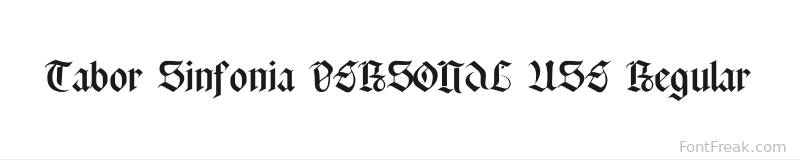
Tabor Sinfonia PERSONAL USE Regular
Tabor Sinfonia PERSONAL USE Regular is a striking display font designed by Mans Greback, characterized by its unique serif style. This font features a blend of traditional elegance and contemporary flair, making it a versatile choice for various creative projects. The stroke weight varies gracefully, adding a sense of dynamism to the characters, while the contrast between thick and thin lines enhances its visual appeal. The spacing is well-balanced, allowing for easy readability while maintaining an artistic touch. Decorative elements, such as stylized serifs and unique character shapes, give Tabor Sinfonia a distinctive personality that sets it apart from standard typefaces.
This font is particularly well-suited for wedding invitations, where its elegant design can convey a sense of romance and sophistication. Additionally, it works wonderfully for movie posters, capturing attention with its dramatic flair. Restaurant menus can benefit from its artistic presentation, helping to create a memorable dining experience. Graphic designers and content creators will find Tabor Sinfonia to be an excellent choice for branding projects, ensuring that their designs stand out in a crowded marketplace.